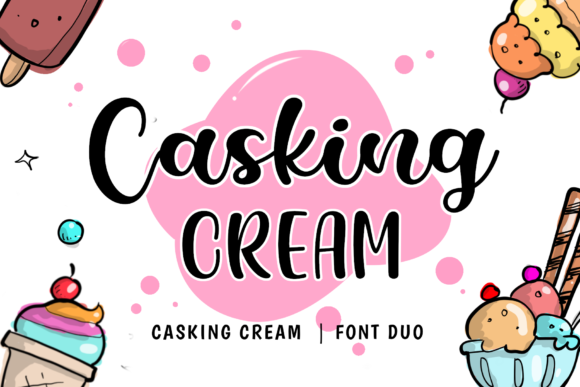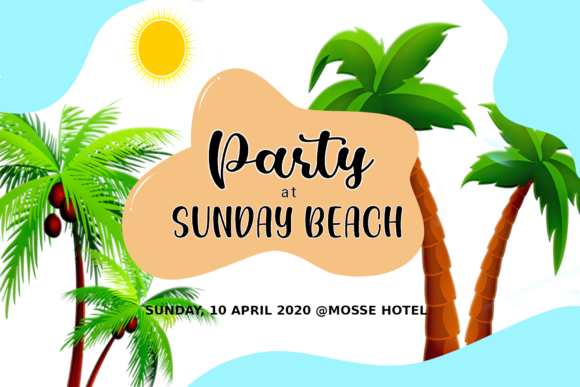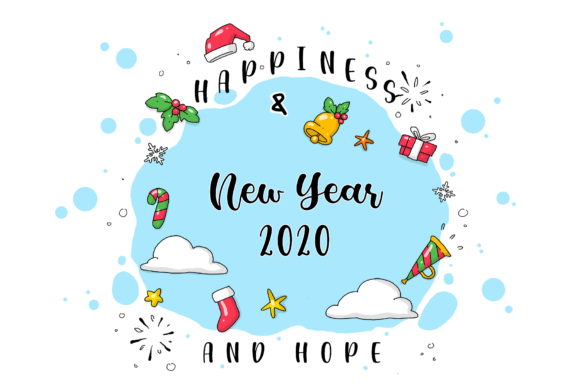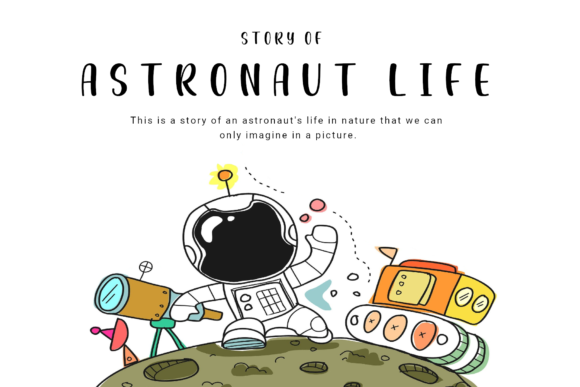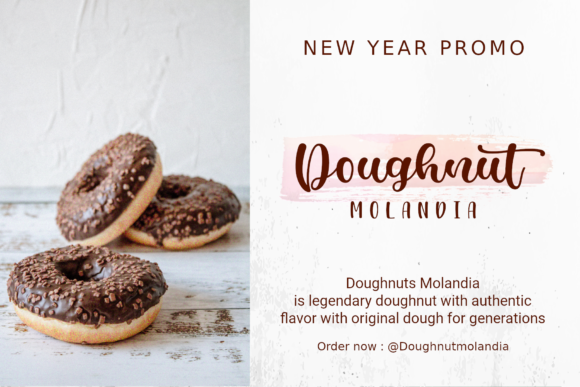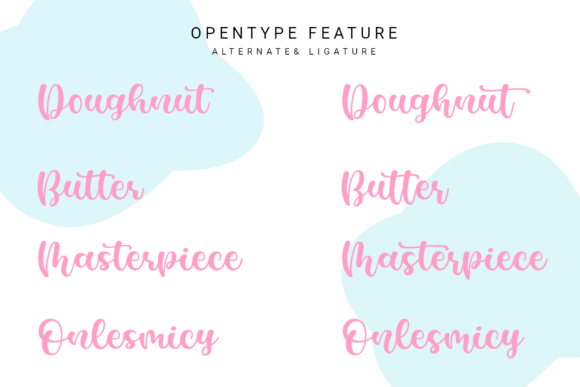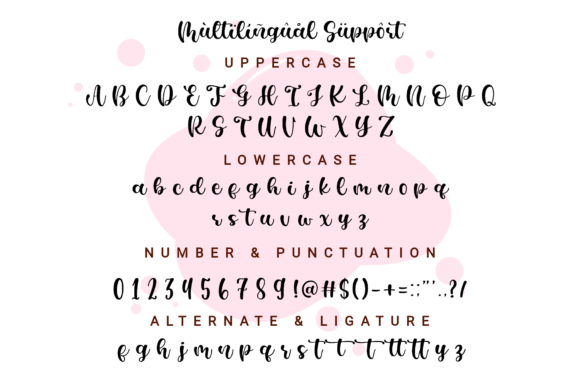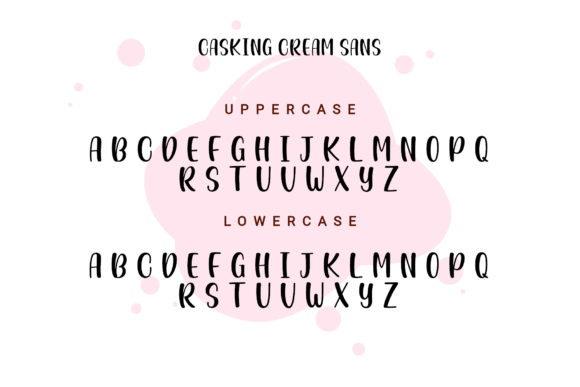
Casking Cream Font
About Casking Cream Font
Casking Cream is a cute duo font. It features great script and strong sans serif characters. Combining these two fonts on your next design will give a stylish and unique feel.
It will elevate a wide range of design projects to the highest level, be it branding, headings, wedding designs, invitations, signatures, logos, labels, and much more!